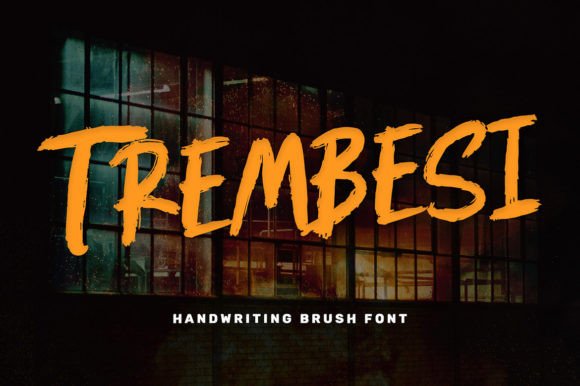
Introducing Trembesi Font, a masterful display font that merges confidence and sophistication like never before. Its bold lines and sharp angles, reminiscent of a confident signature, lend an air of authority to your words. Delve deeper, and you'll discover fluid strokes, imbued with grace and refinement, adding a touch of elegance to even the simplest of messages.
Trembesi transcends time, effortlessly blending a classic aesthetic with a contemporary flair. It's the perfect choice for projects demanding attention, projects that refuse to blend into the background, be it logos, posters, branding, wedding invitations, or social media posts. Its versatility extends to digital and print media, making it a font of infinite possibilities.
This font is more than just a collection of letters; it's an expression of your individuality, a reflection of your unique style. Its commanding presence will elevate your messages, adding weight and substance to every word. Its timeless design ensures that your creations will remain relevant and striking for years to come.
In a world of monotonous fonts, Trembesi is a breath of fresh air. It offers a distinctive voice to your designs, a voice that speaks with confidence, a voice that turns heads. Whether you're a creative professional seeking a font that reflects your vision or an individual seeking a font that exudes personal style, Trembesi will exceed your expectations.
Imagine your social media posts leaping off the screen, demanding attention with every scroll. Envision your logos radiating authority, making a bold statement about your brand. Picture your invitations radiating elegance, promising an unforgettable event. Trembesi is the key to unlocking these visual wonders and so much more.
Don't settle for ordinary fonts that fade into the background. Choose Trembesi, the font that demands attention, the font that makes a statement. Let your words dance with confidence, your designs radiate sophistication, and your creativity soar to new heights. Trembesi is more than just a font; it's a passport to a world of visual impact and success.